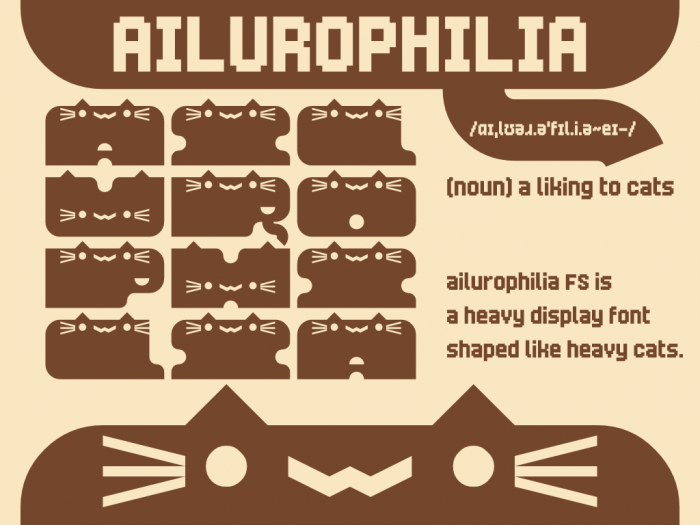
The detail at the top and bottom are from the letter Q.
Quite the unique and cute design~
Really heavy. Nice sample.
this font makes me actually like cats
Ailurophilia